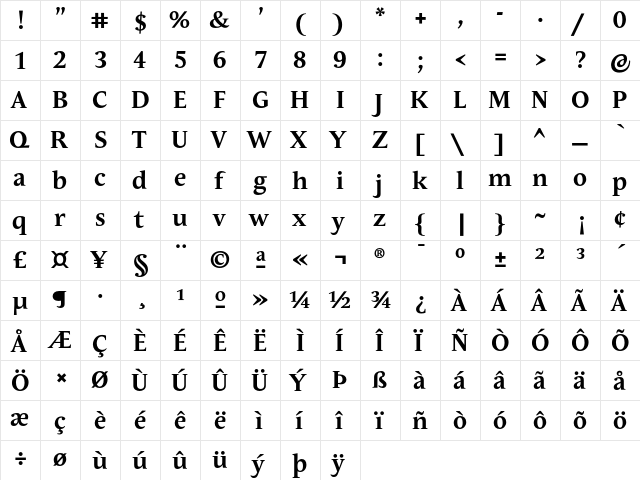
Andulka Text Pro Bold
| Designer | Frantisek Storm |
Design Context for Andulka Text Pro Typeface
Andulka Text Pro offers clean, dependable letterforms without strong stylistic allegiance, making it a practical choice for designers who need flexibility. Its bold stroke weight gives it real presence on the page.